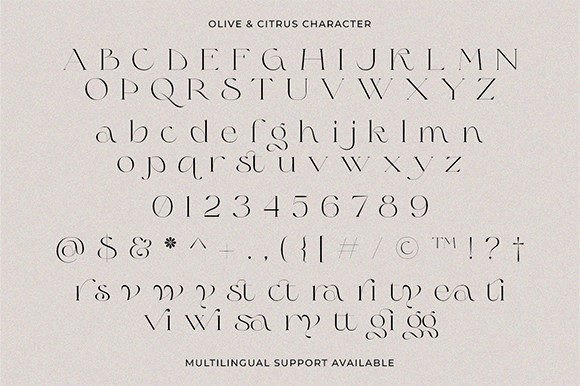
Olive & Citrus Font
Olive & Citrus is a modern, classic, and elegant serif typeface. It is suitable for branding designs, logos, magazines, and social media posts.